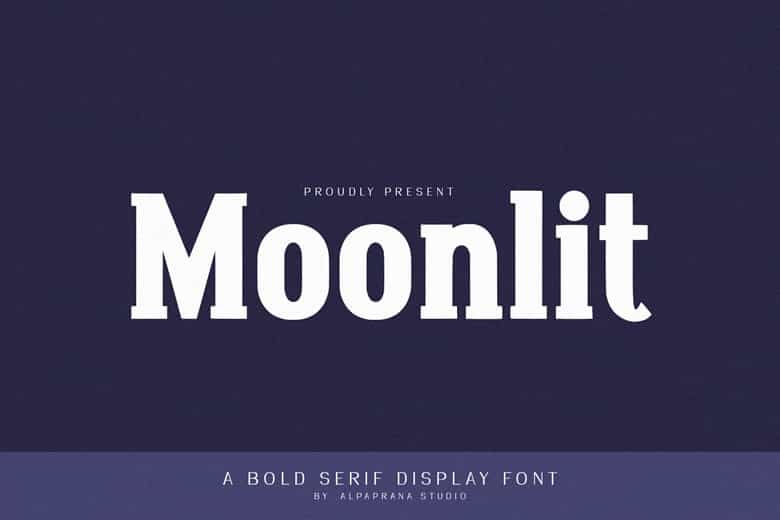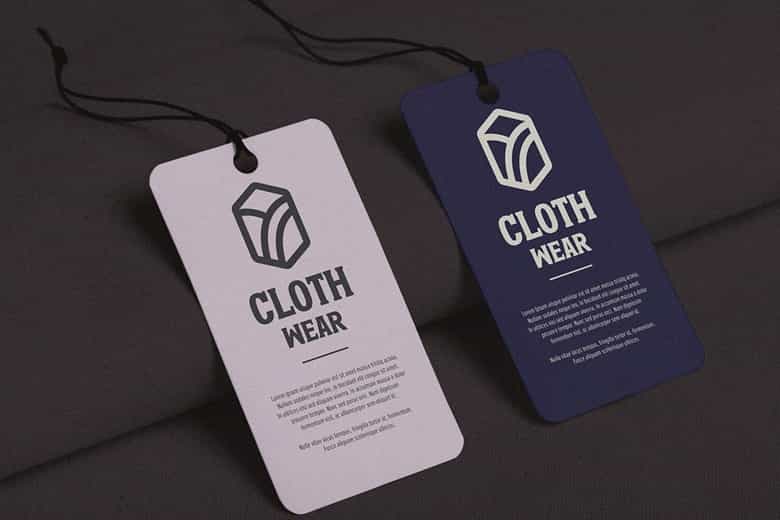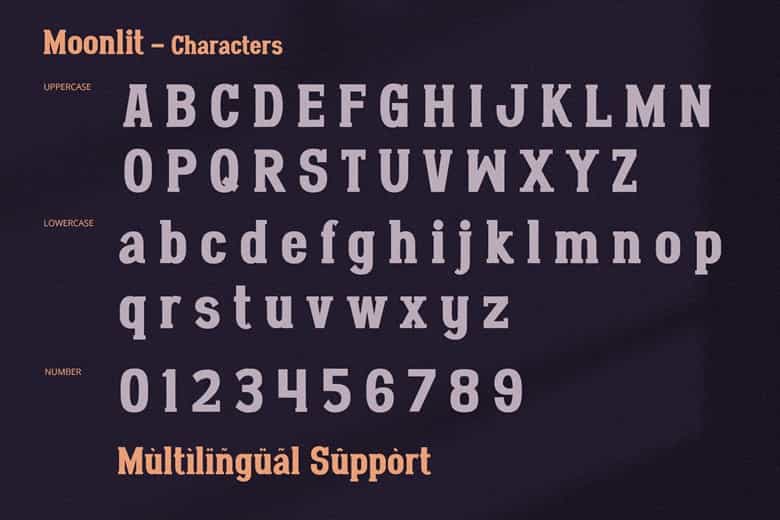
Moonlit is unique style of serif font with stylish and trendy appearance. It could be ideal for branding, logo design, lettering, logotype, clothing, magazine, packaging, posters, shopping bags, t-shirts, book covers, photography, special events and many other design project.